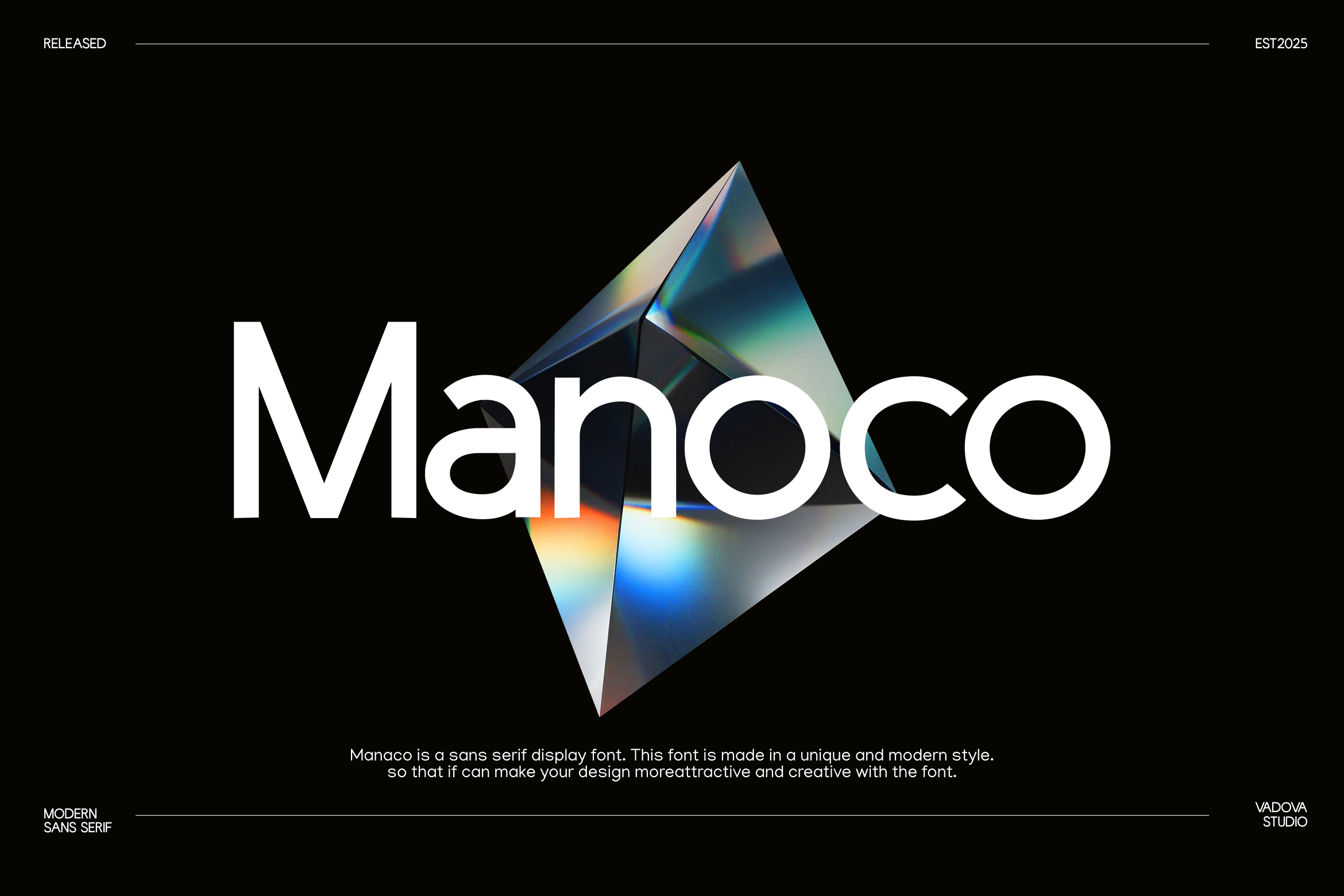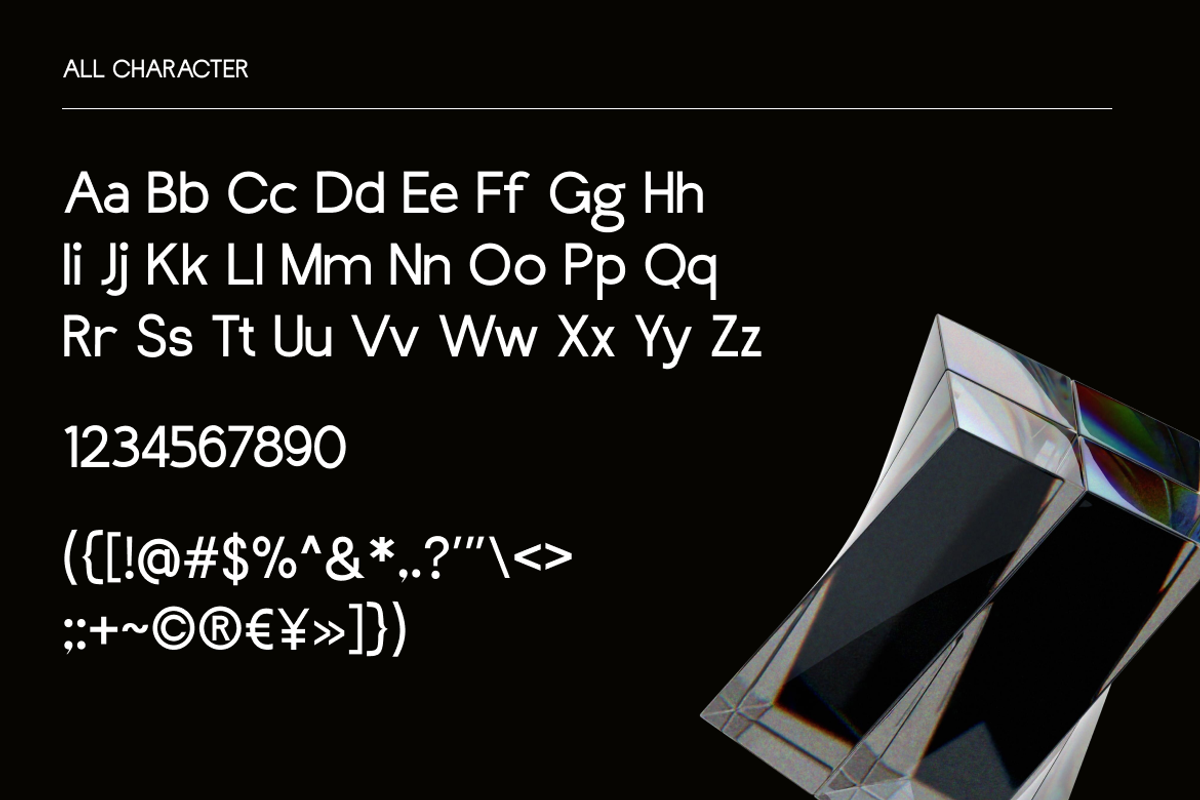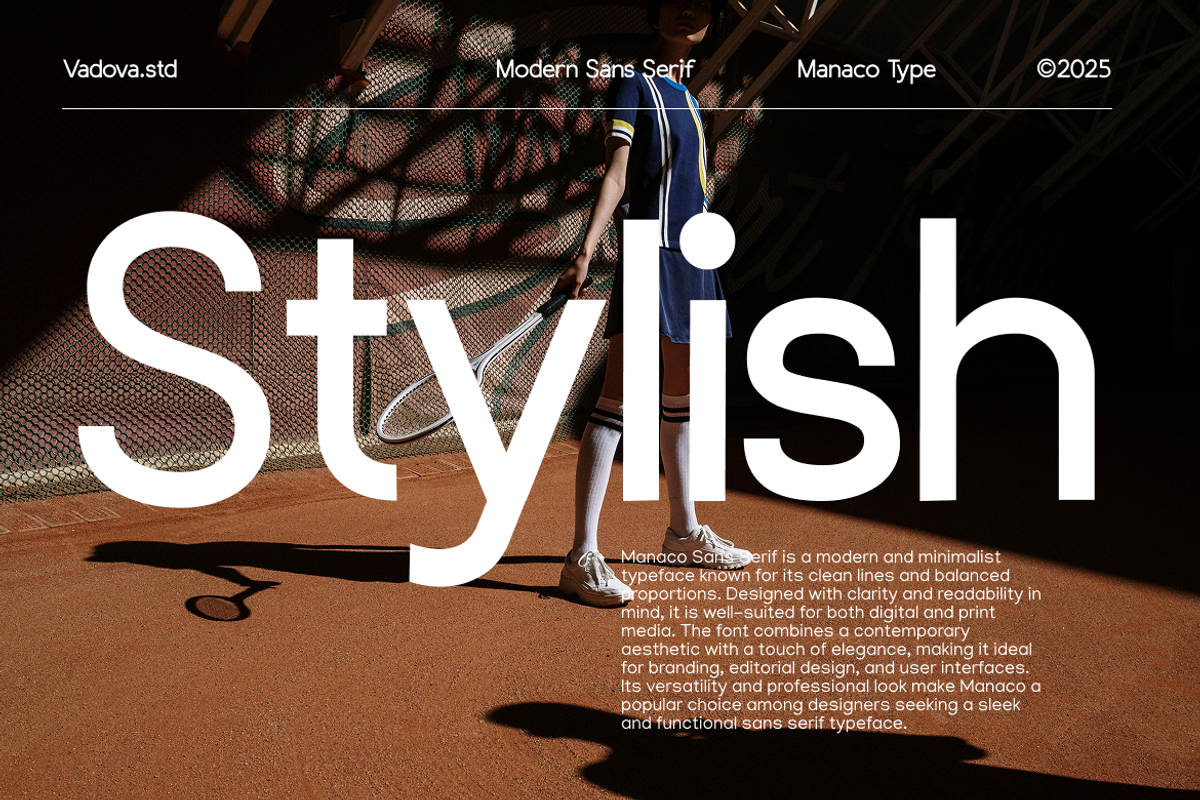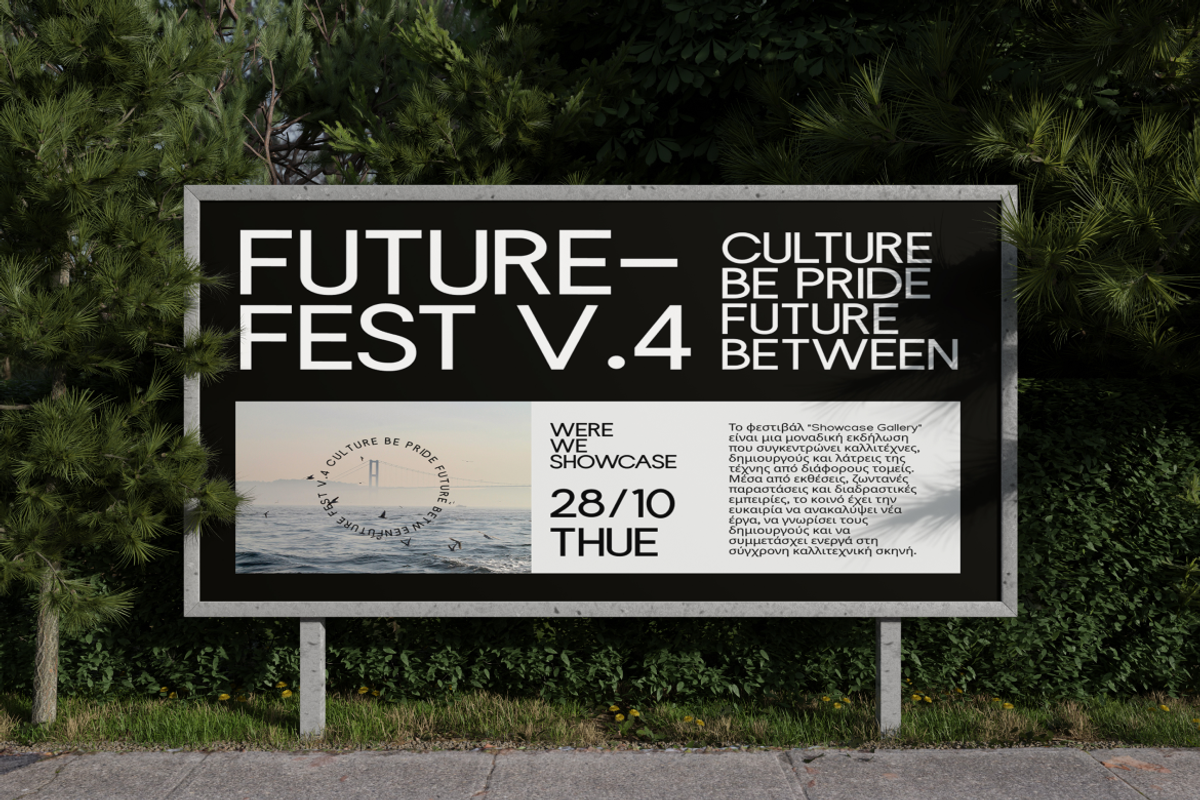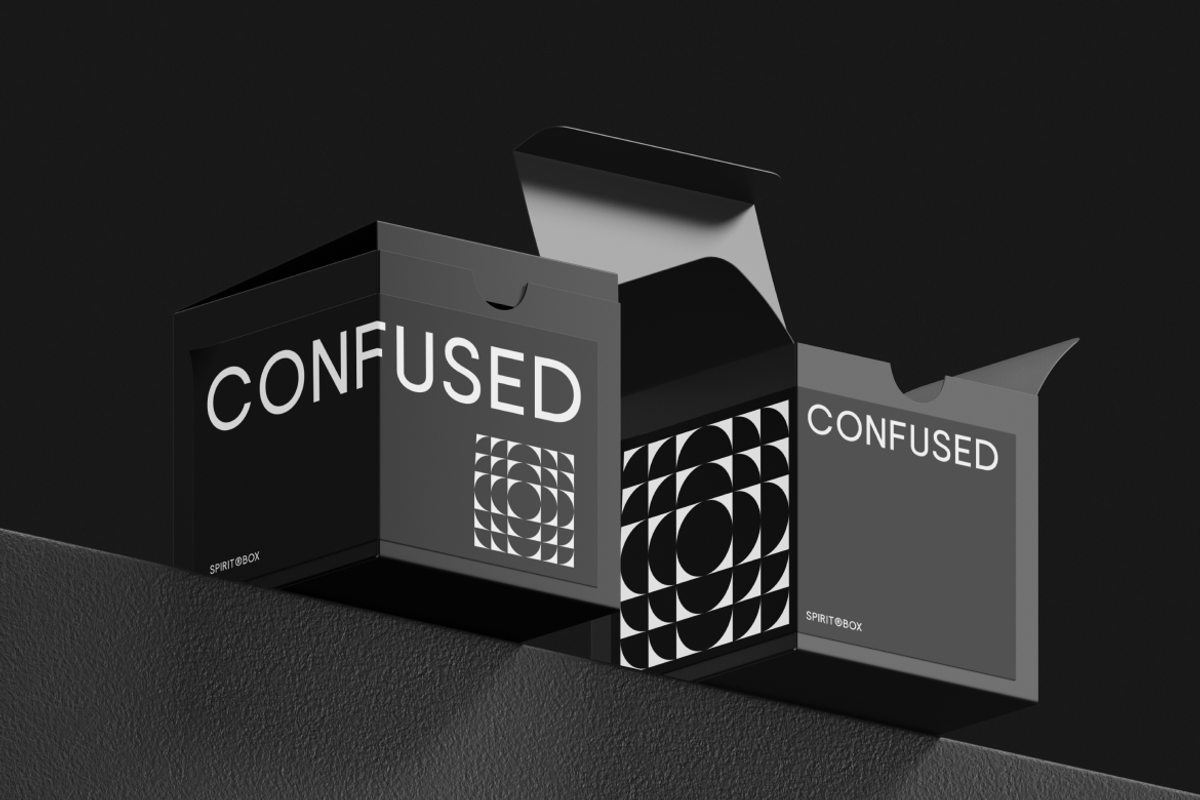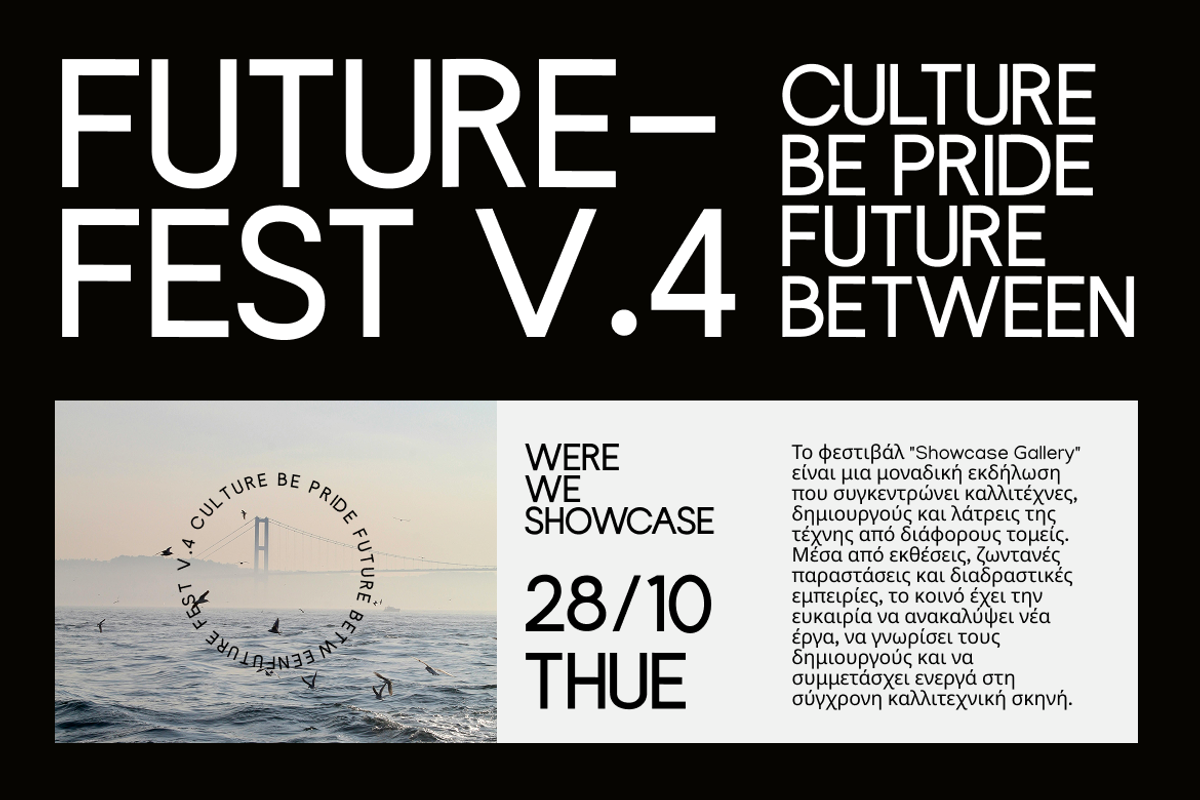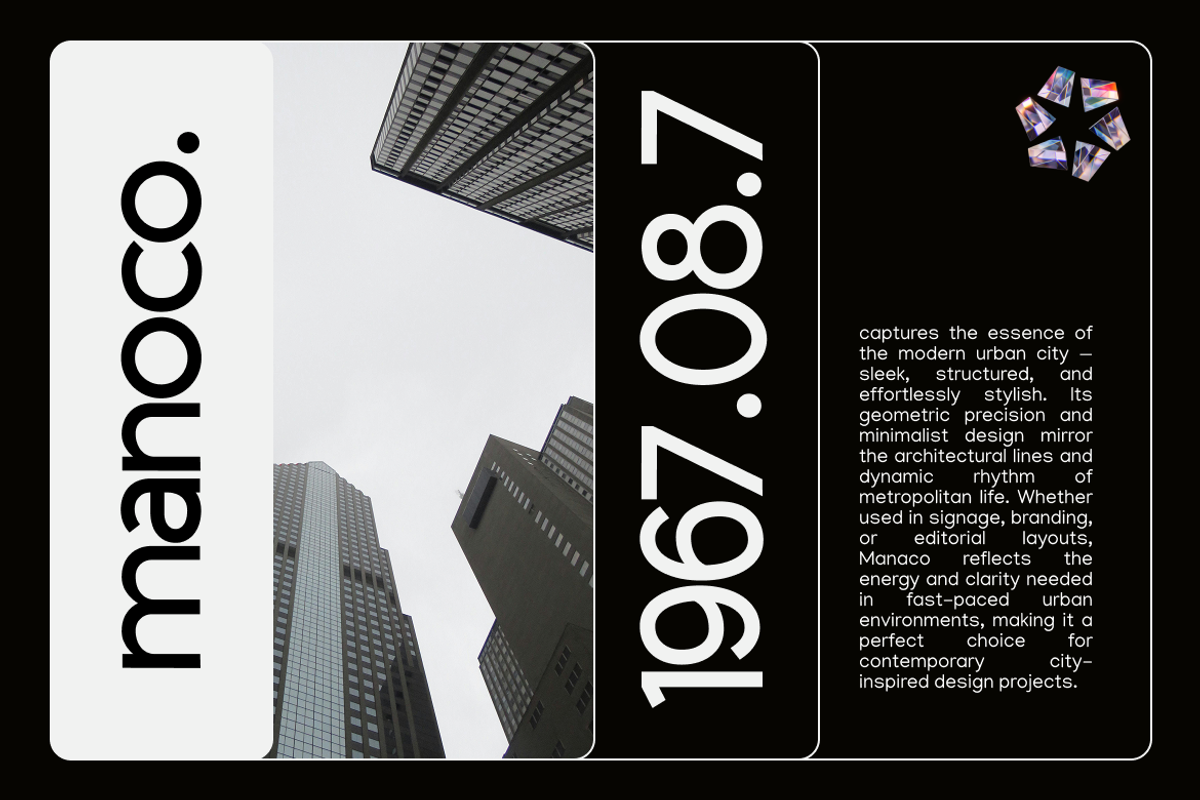
Manoco Modern Sans Serif Font
Manoco is a sleek modern sans serif display typeface designed to bring clarity, edge, and creative sophistication to your visual projects. With its geometric structure, minimal contrast, and crisp letterforms, Manoco is ideal for both digital and print uses, delivering a clean and professional tone. The font includes uppercase, lowercase, numerals, punctuation, and multilingual support crafted to work perfectly in branding, headlines, editorial spreads, and tech-forward UI designs.
Manoco’s blend of minimalist form and functional design makes it highly relevant for brands, creatives, and developers seeking a font that communicates innovation, clarity, and confidence. Its clean look is especially suited for tech startups, digital platforms, fashion editorials, product packaging, and modern visual branding systems.
- Geometric sans serif style refined for contemporary aesthetics
- Clean, low-contrast strokes with balanced proportions
- Rounded terminals and simplified forms for modern clarity
- Humanist touches that soften the overall structure
- Optimized kerning and spacing for versatility in headlines and body text
- Branding systems that require a sharp, modern sans serif
- UI/UX templates for tech startups and app interfaces
- Clean editorial layouts and contemporary magazine spreads
- Futuristic posters, product packaging, and tech labels
- Social media kits, banners, and ads with a bold minimal tone
Stand out with precision Manoco brings modern structure and sleek display power to your designs